Fancy Letter R Font
Every fancy font style rendered for just the letter R, so you can compare them side by side before picking one for an initial, a logo, or a single-character tag.
The Letter R in Every Style
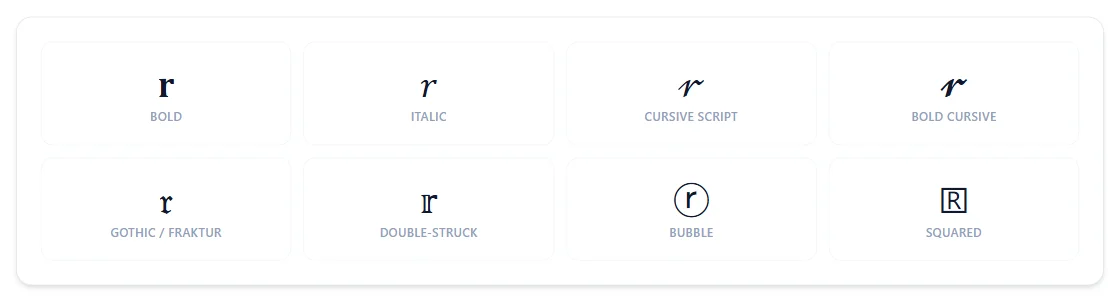
R borrows more real math symbols than almost any other letter: Fraktur R is ℜ (the real-part-of-a-complex-number symbol) and Double-Struck R is ℝ, probably the most recognizable of all these borrowed characters — the standard symbol for the real numbers.
Why does double-struck R look so familiar?
It's ℝ, the standard math symbol for the real numbers — one of the most widely recognized borrowed characters in this whole alphabet.